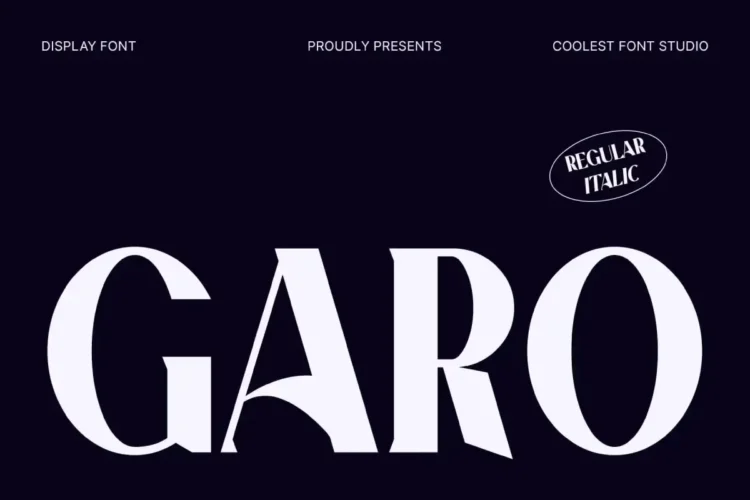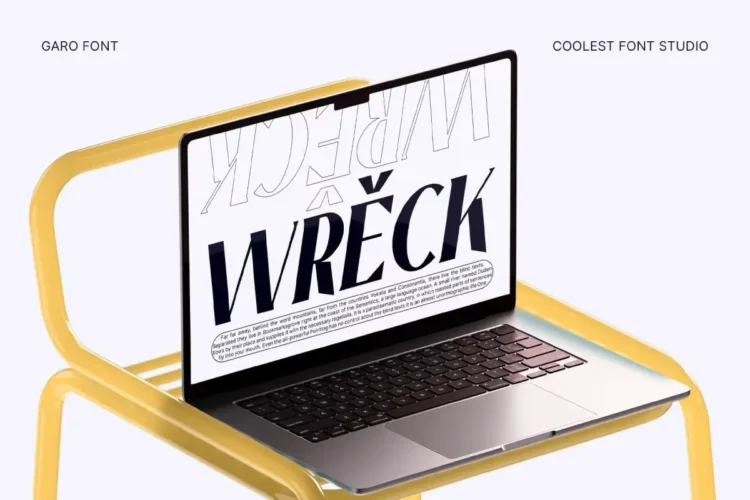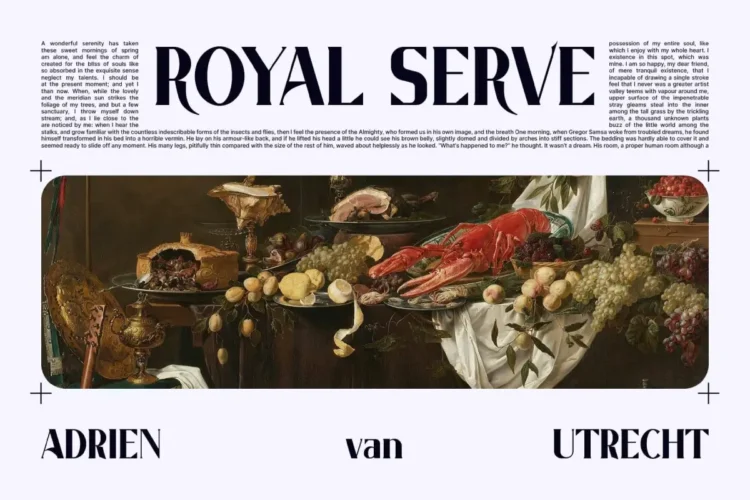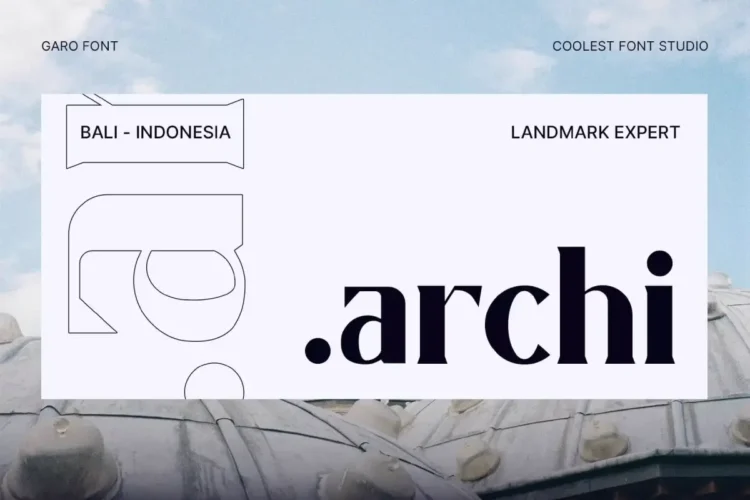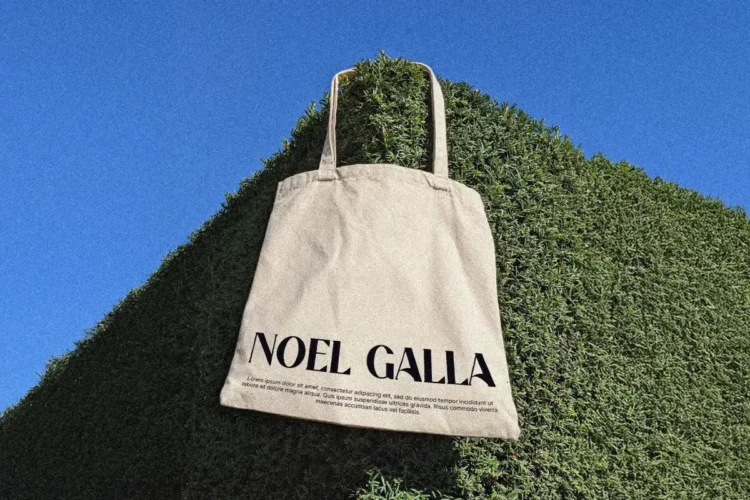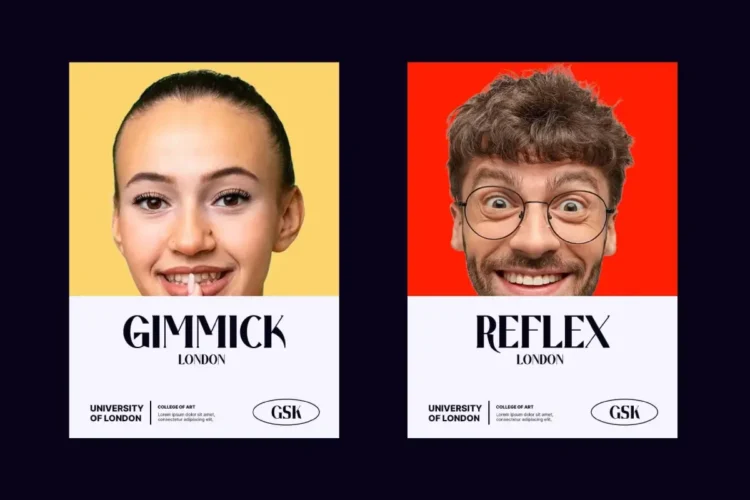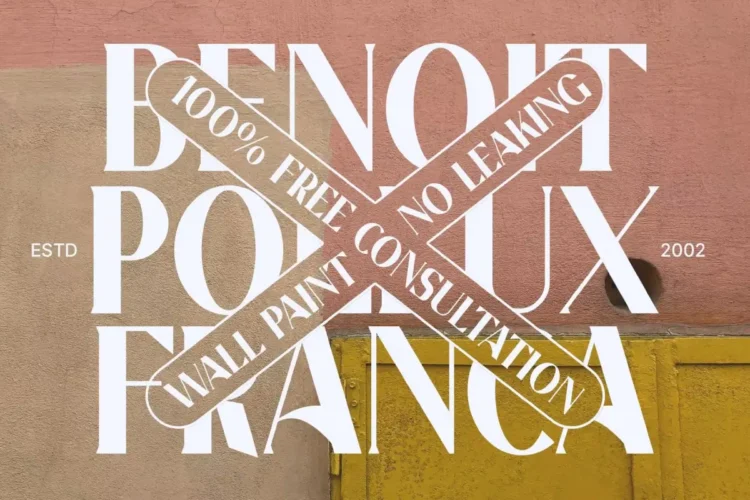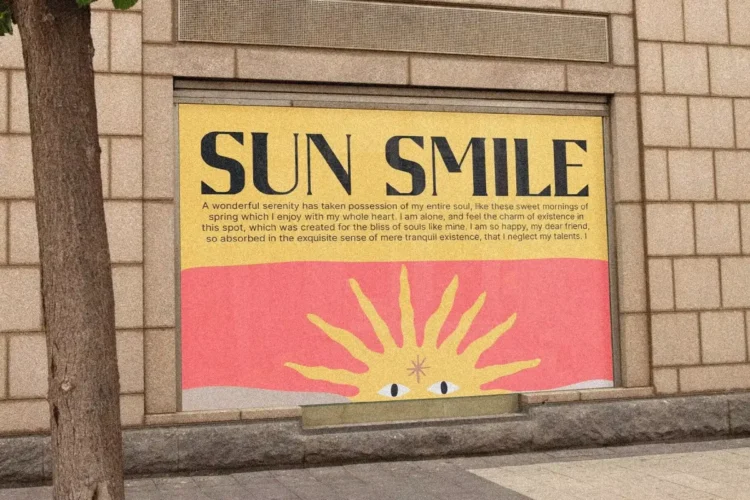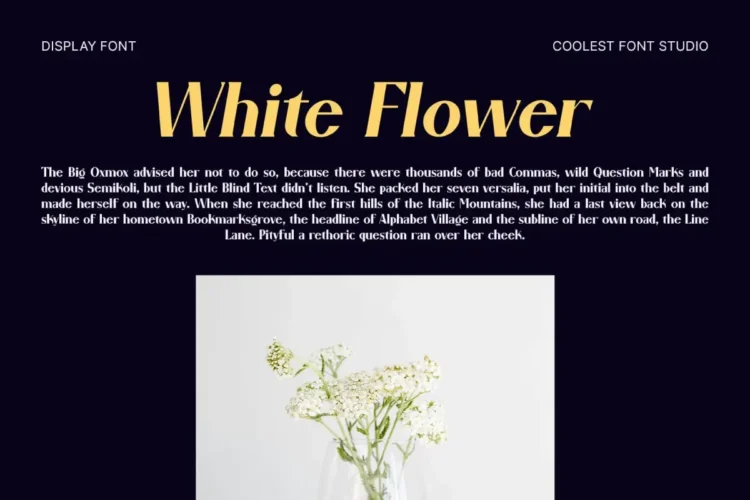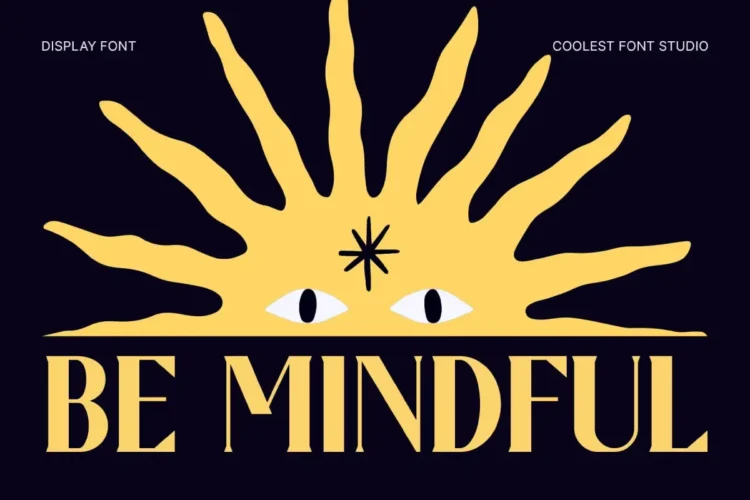
Garo Font – Elegant Modern Display Font (Regular & Italic) for Branding, Logos, Posters, and Editorial Design
Garo Font is a bold, elegant, and artistic display font designed to elevate visual storytelling with its refined curves and unique character structure. Available in Regular and Italic, this typeface blends modern sophistication with expressive editorial charm—making it a perfect choice for standout branding and premium design projects.
As a serif font crafted for high-impact aesthetics, Garo Font is ideal for designers searching for a branding font, modern font, or cool font that adds personality and luxury to any layout.
Its sharp contrast, stylish cuts, and elongated forms make it exceptionally strong as a headline font, logo font, poster font, and cover font, ensuring every word looks striking and memorable.
Garo Font performs beautifully across digital and print applications, delivering professional results for creative industries that demand elegance and identity consistency.
Perfect Uses for Garo Font :
- Luxury branding & visual identity
- Editorial design, magazines, and book covers
- Fashion campaigns & advertising
- Product packaging & premium labels
- Artistic posters & event promotions
- Website headers & UI hero text
- Logo design & monogram creation
- Merchandise, tote bags, and lifestyle branding
- Creative social media graphics
Garo Font Key Features:
- Display typeface with modern, artistic personality
- High contrast letterforms for dramatic visual impact
- Includes Regular & Italic styles
- Smooth curves mixed with sharp edges for unique styling
- Works exceptionally well for print & digital projects
- Designed to stand out in premium visual branding
Garo Font transforms every design into a statement piece, ideal for creatives who want style, power, and distinction in every letter.